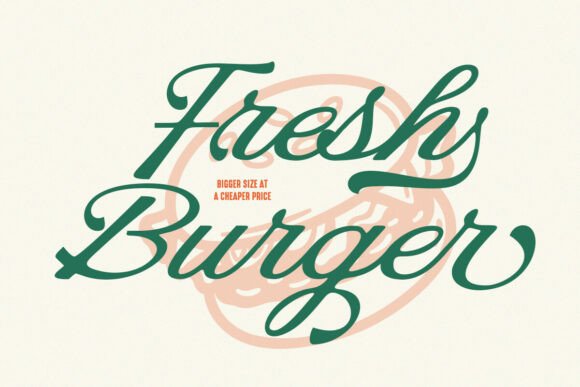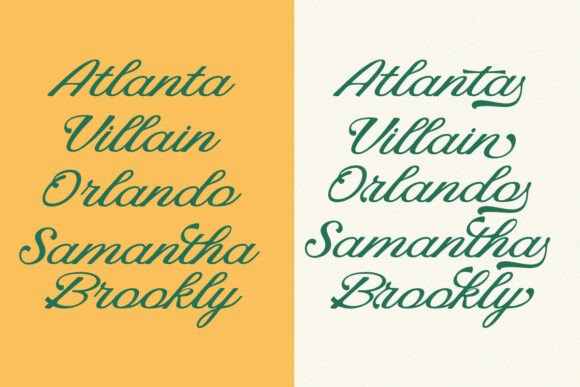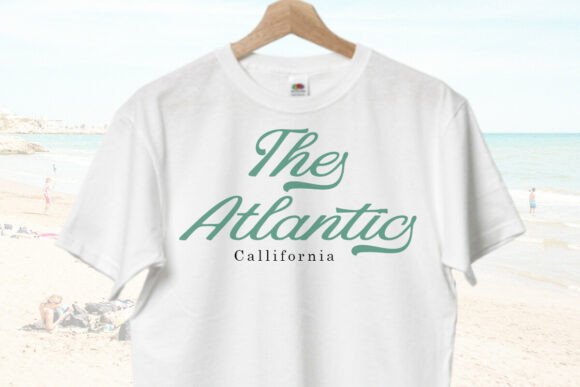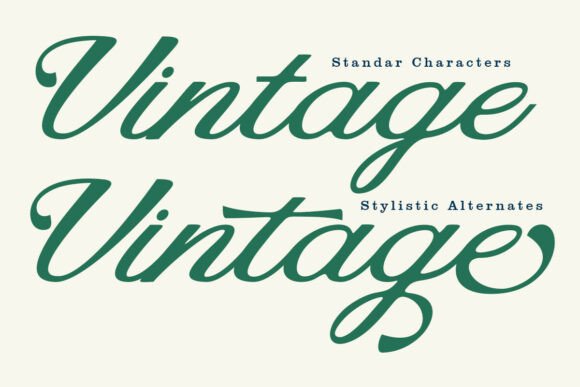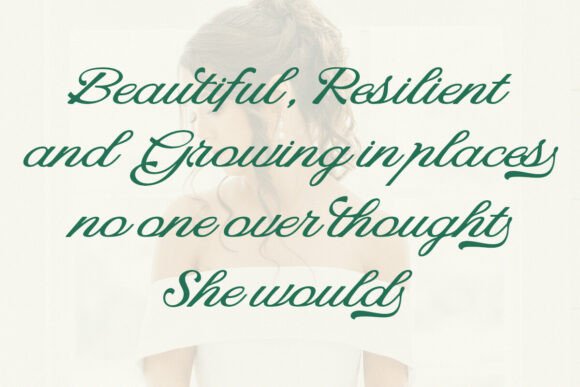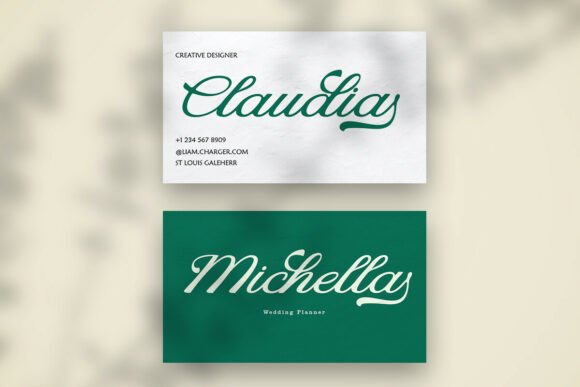
Discover the Timeless Charm of Grande Island Font
As you sit at your desk, brainstorming ideas for your next creative project, the words start flowing, and the excitement builds. You’re on the hunt for the perfect font to convey your message, evoke emotions, and leave a lasting impression. That’s when you stumble upon the Grande Island New Vintage Brand – a beautifully crafted script typeface that’s sure to capture the essence of your vision.
With its flowing characters and elegant curves, the Grande Island Font is perfect for logos, badges, emblems, and titles that demand attention. Its versatility makes it an ideal choice for packaging, posters, t-shirts, greeting cards, and wedding invitations. What sets it apart is the range of alternate characters that can be accessed using OpenType programs, allowing designers to experiment and create unique styles.
Grande Island Font Key Features
- Font Family: Grande Island Font is a unique, modern script font designed to evoke the feeling of tropical island getaways.
- Character Set: Grande Island Font contains a wide range of characters, including uppercase and lowercase letters, numbers, and punctuation marks.
- Unique Characteristics: Grande Island Font features a unique, hand-drawn style with subtle imperfections, giving it a natural, organic feel.
Grande Island Font Review
I recently had the chance to work with the Grande Island font, and here’s my honest review.
- Unique Design: Grande Island offers a refreshing twist on traditional script fonts. Its island-inspired aesthetic adds a touch of tropical charm to any design project.
- Highly Legible: The font’s letterforms are well-balanced and easy to read, even at smaller sizes, making it suitable for body text and headings.
- Wide Character Set: The font includes a wide range of characters, including international characters, making it a great option for multilingual designs.
- Limited Font Sizes: While the font looks great at standard sizes, it can become pixelated at very small or very large font sizes, which may be a concern for designers who need to work with these extremes.
- No Matching Italic: The font only comes in a regular weight, which may limit its versatility for designers who rely on italic text.
Overall, I think Grande Island is a great addition to any designer’s toolkit. Its unique design and high legibility make it a great choice for a wide range of projects. However, its limitations may be a concern for designers who need to work with very small or very large font sizes or require a matching italic weight.
To get the most out of the Grande Island Font, use it in conjunction with bold or italic text to create contrast and visual interest. You can also use it in combination with other fonts to create a unique and eye-catching design.
The Grande Island Font is ideal for use in headings, titles, and subtitles. It is also suitable for use in branding and marketing materials, such as logos, business cards, and brochures.